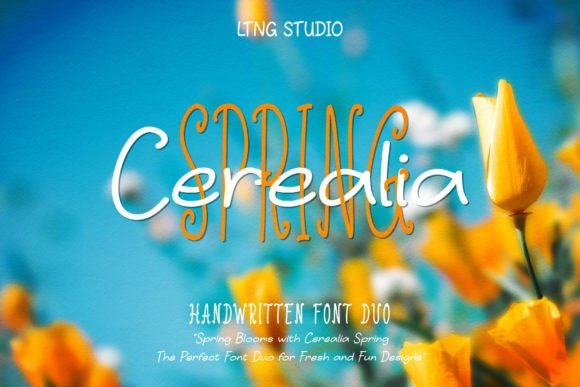
Spring into Creativity with Cerealia Spring Handwritten Duo Font
Have you ever felt a sudden urge to create something beautiful and whimsical? Maybe it’s the arrival of spring, and the fresh air has sparked a new wave of inspiration. Whatever the reason, we’re excited to introduce you to the perfect tool to bring your creative vision to life – Cerealia Spring Handwritten Duo Font.
This charming font duo consists of a cute, simple, and clean handwritten font, paired with a condensed swirl handwritten font, offering endless possibilities for your designs. Whether you’re working on a spring-themed project, a children’s book, or a social media campaign, Cerealia Spring Handwritten Duo Font is the perfect addition to your design toolkit. With its lively and whimsical aesthetic, this font duo will add a touch of magic to your creations, making it a valuable asset for designers looking to elevate their projects.
Cerealia Spring Handwritten Duo Font Key Features
- Font Style: Handwritten Duo Font with elegant, cursive script and modern feel.
- Size: The font includes 4 different sizes: 12pt, 14pt, 16pt, and 18pt, allowing for versatile use in different contexts.
- Unique Characteristics: The font features beautiful, hand-drawn elements, and a unique combination of uppercase and lowercase letters, making it perfect for adding a personal touch to designs.
Cerealia Spring Handwritten Duo Font Review
I recently had the chance to work with the “Cerealia Spring Handwritten Duo Font” and I must say, it’s a beautiful addition to any design project. ✨ The font is perfect for creating a warm and inviting atmosphere, especially when paired with the right color palette. The handwritten feel adds a touch of personality to any text, making it perfect for branding and marketing materials.
Here are some of the things that I think work well with this font:
- ✨ Unique and eye-catching: The Cerealia Spring Handwritten Duo Font is definitely a conversation starter. Its unique style is sure to grab attention and leave a lasting impression.
- ✨ Versatile: This font can be used for a variety of projects, from wedding invitations to social media graphics.
- ✨ Easy to read: Despite its handwritten feel, the font is still easy to read, making it perfect for body text as well as headlines.
Of course, no font is perfect, and I did encounter some limitations:
- ⚠️ Limited character set: The font’s character set is limited, which can make it difficult to use for projects that require a lot of custom text.
- ⚠️ Not ideal for small text: The font’s handwritten feel can make it difficult to read when used in small text sizes.
Overall, I’m really impressed with the Cerealia Spring Handwritten Duo Font. While it has some limitations, its unique style and versatility make it a great addition to any design project. With a little creativity and planning, this font can be used to create truly stunning designs.
Use the Cerealia Spring Handwritten Duo Font in combination with bold or italic fonts to create a visually appealing contrast.
Experiment with different font sizes and colors to create a unique design.
Use the font in conjunction with other design elements such as images or graphics to create a visually appealing design.
The Cerealia Spring Handwritten Duo Font is ideal for:
Birthday and holiday cards
Personalized gift tags and labels
Q: Is the Cerealia Spring Handwritten Duo Font available in different weights and styles?
Yes, the Cerealia Spring Handwritten Duo Font is available in two distinct styles: Regular and Bold. Each style has its unique characteristics, allowing you to create a wide range of visual effects and designs. You can use these styles together to add depth and interest to your typography.